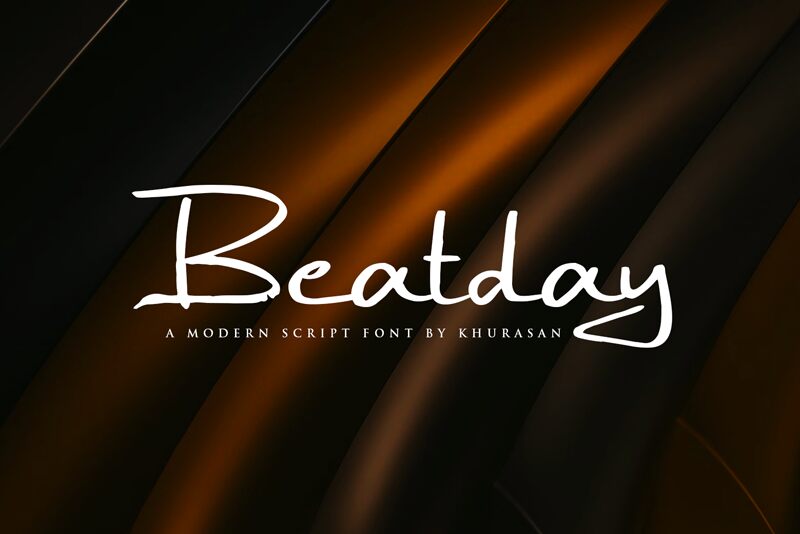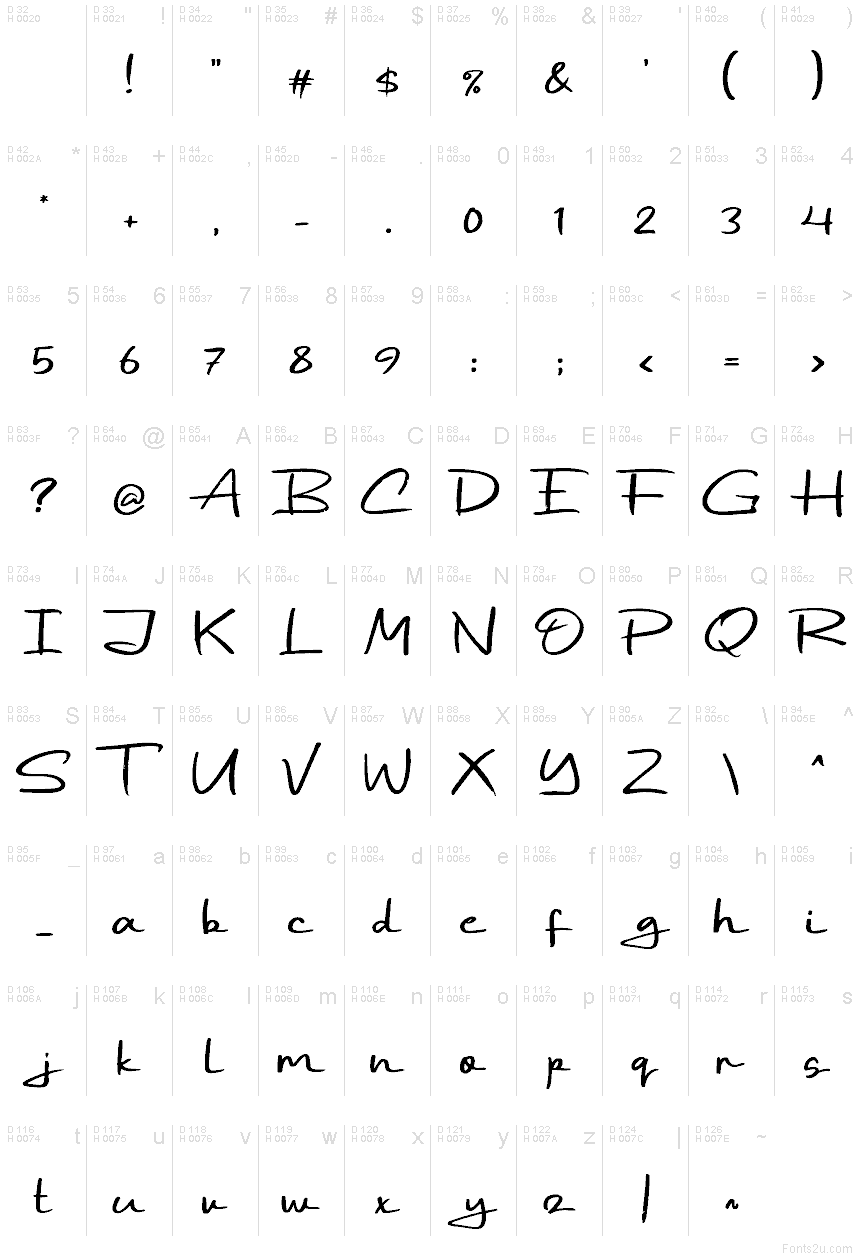
Beatday
Beatday font by Khurasan is a free casual handwritten typeface that solves the “cute but unreadable” script problem. Its easy right-lean, steady monoline strokes, and roomy spacing keep words breezy yet clear, while subtle pen-texture gives it a human, inky warmth. The letters link with relaxed rhythm, so lines feel friendly and unforced—like a neat note dashed off with confidence.
Using Beatday, headlines and tags stay legible even at smaller sizes, and longer phrases don’t clump. This free font shines on product packaging, quote graphics, social posts, event invitations, cafe menus, and personal branding, as well as stickers and labels. For balance, pair it with a quiet, geometric sans and let Beatday carry the personality at larger weights or a touch more tracking.